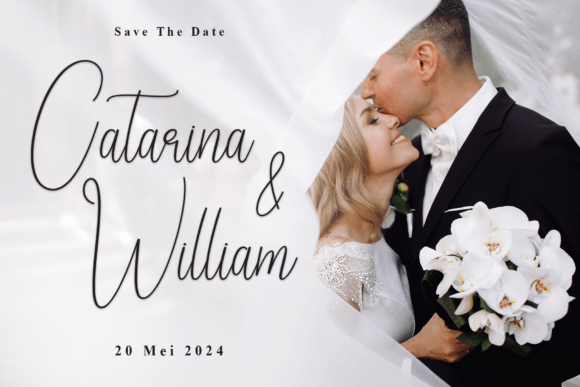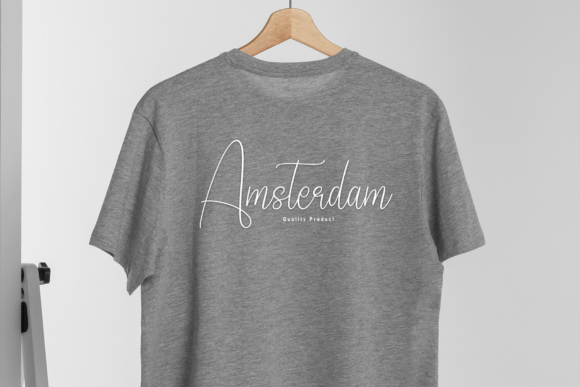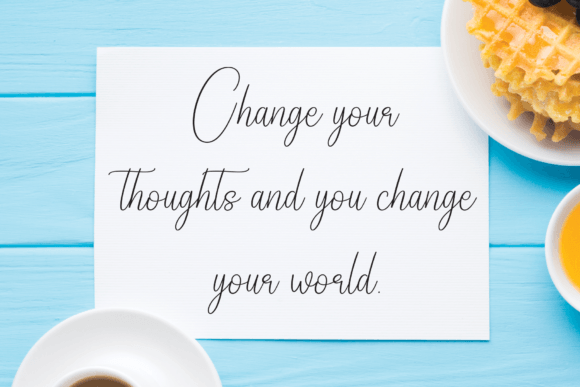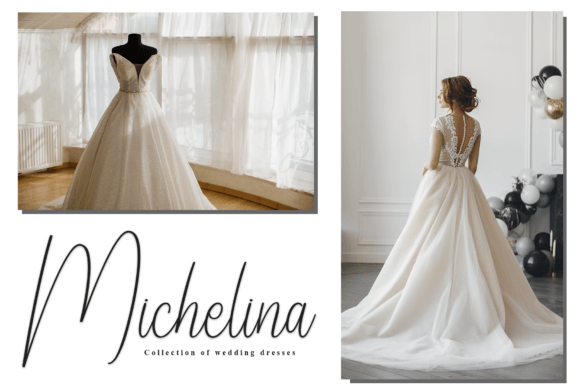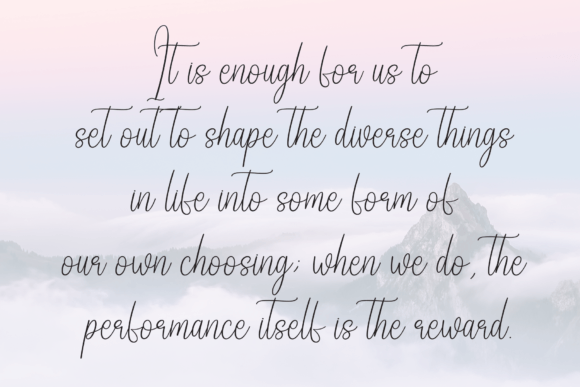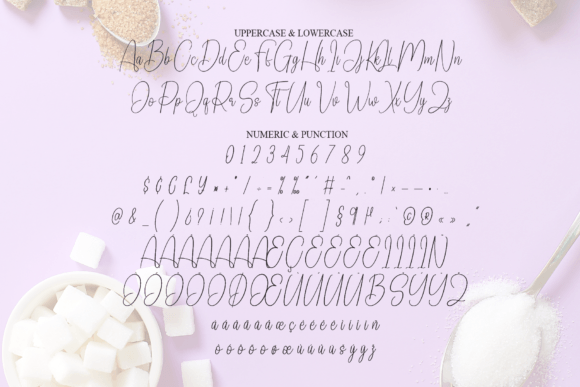
Introduction to Beauty Sugar Font
Have you ever been working on a creative project, pouring your heart and soul into it, only to feel like something’s missing? That’s exactly what happened to me when I stumbled upon the enchanting Beauty Sugar Font. Its whimsical charm and friendly demeanor immediately captured my attention, and I knew I had to share it with the world.
As designers, we’re always on the lookout for that special something that sets our designs apart. And that’s exactly what Beauty Sugar Font offers – a unique blend of high quality and playfulness that’s hard to resist. Whether you’re working on a wedding invitation, a personalized card, or any other design that requires a dash of whimsy, this font is sure to bring a smile to your face.
Key Features of Beauty Sugar Font
- High-quality design resource suitable for creative projects, offering a unique and elegant touch.
- Available in 5 different font styles, each with its own distinct characteristics, making it a versatile design resource.
- Perfect for use in logos, branding materials, and other design elements where a touch of elegance and sophistication is required.
- Supports multiple languages, making it a great choice for international branding and design projects.
I recently stumbled upon the Beauty Sugar Font, and I must say it’s a lovely addition to any creative project. The high-quality design and transparent background make it perfect for modern designs and projects where a touch of sweetness is needed.
Here are some of the things that work well with the Beauty Sugar Font:
- ✨ Beautiful and elegant design that adds a touch of sweetness to any project
- ✨ High-quality fonts that are perfect for digital and print designs
- ✨ Transparent background that makes it easy to work with in any design
However, I do have some limitations to note:
- ⚠️ Limited character set, making it less versatile for long texts
- ⚠️ Not ideal for projects that require a bold or dramatic font
The Beauty Sugar Font is a high-quality design resource perfect for creative projects. With its transparent background and elegant design, it’s a must-have for any graphic designer or digital artist.
Tips for Getting the Most Out of the Beauty Sugar Font
To get the most out of the Beauty Sugar Font, use it in combination with other design elements, such as bold colors and eye-catching graphics. Experiment with different font sizes, styles, and colors to create unique and stunning designs.
The Beauty Sugar Font is perfect for a variety of creative projects, including:
- Logos
- Documents
- Website design